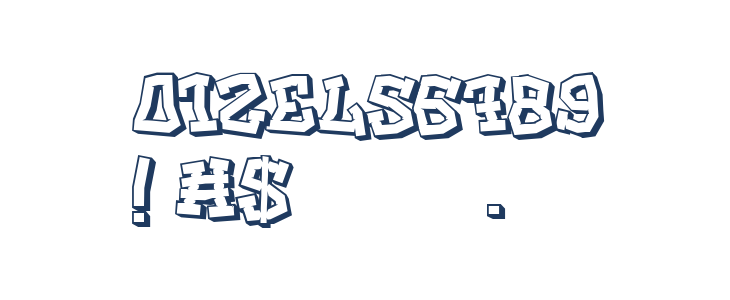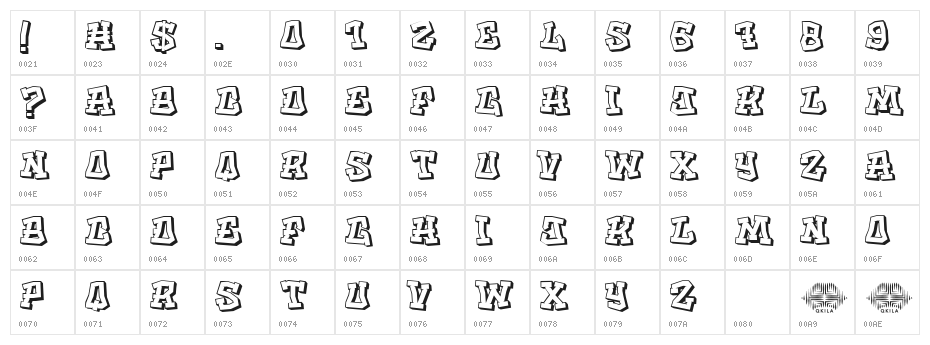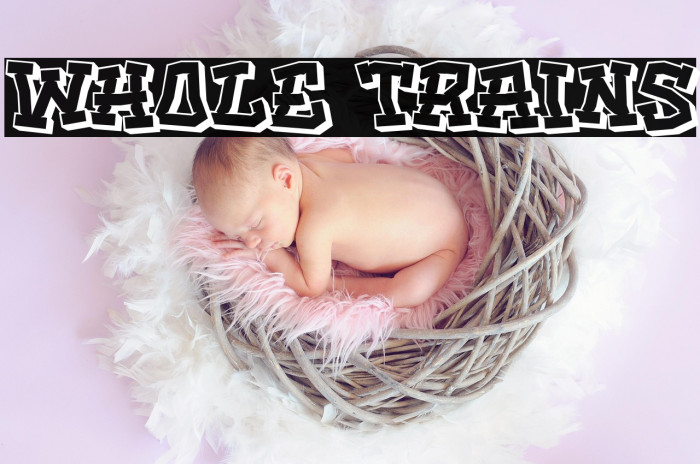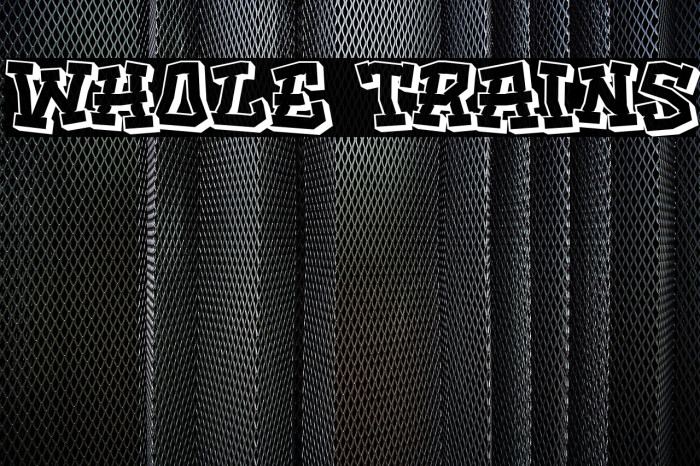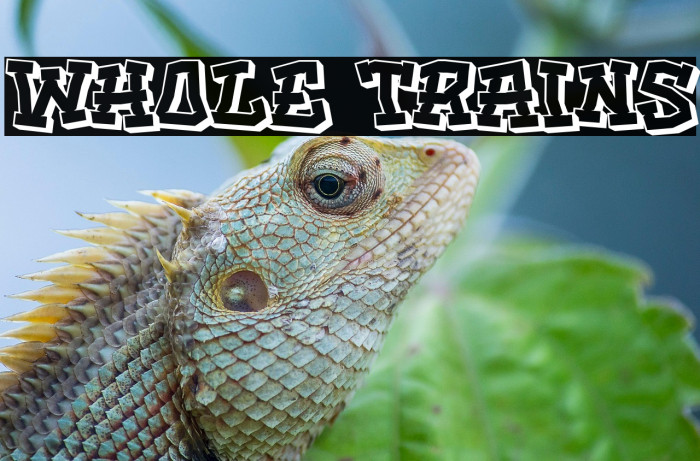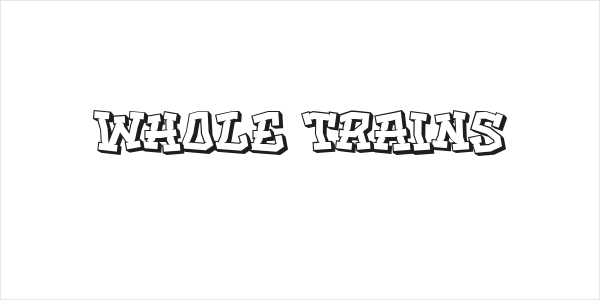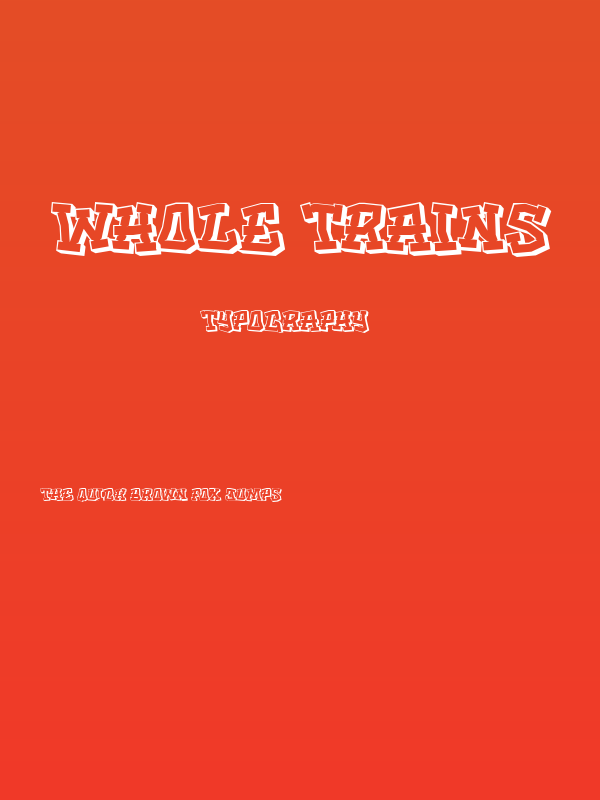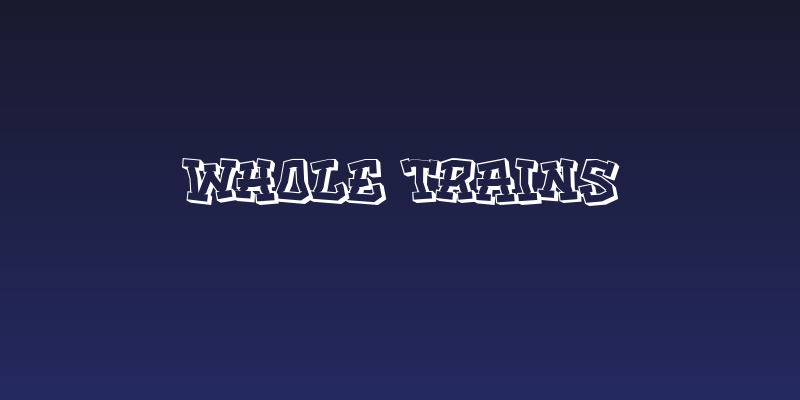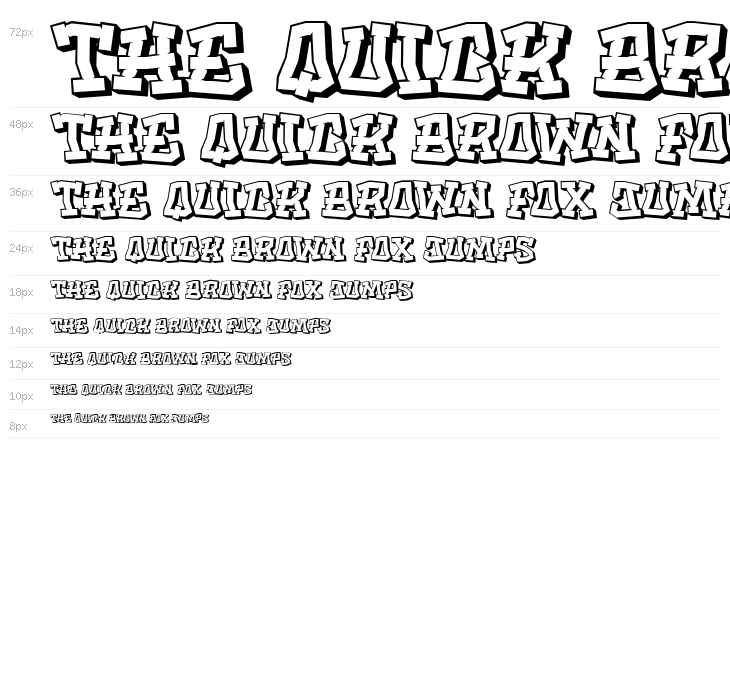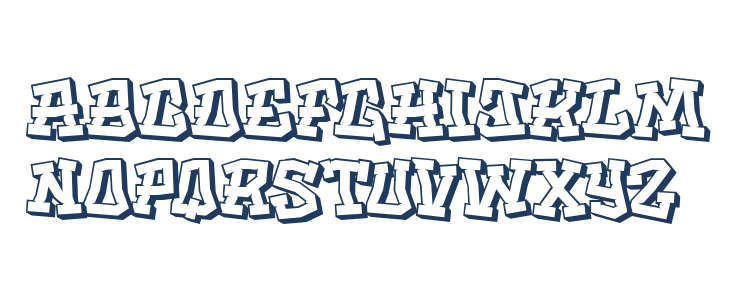
Whole trains Font
Whole trains Description
This font features a bold, graffiti-inspired style with a strong, three-dimensional effect. The letters are outlined with a thick black shadow, giving them a striking and dynamic appearance. The characters are uppercase and have a playful, urban aesthetic, reminiscent of street art. The font's design is highly decorative, with each letter having a unique flair that adds to its overall impact. The numbers and special characters follow the same bold and expressive style, making it suitable for eye-catching designs.
| Overall Style | Urban, Graffiti, Decorative |
| Proposed Projects | Ideal for street art-inspired designs, posters, album covers, and urban-themed branding. |